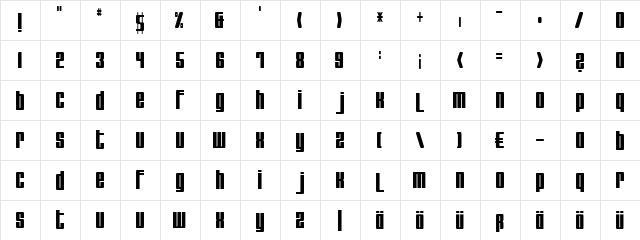
remakeoffabulous2 Light
Design Context for remakeoffabulous2 Typeface
remakeoffabulous2 takes a measured approach to typography — its balanced proportions and neutral character make it a reliable workhorse for both digital and print work. Its slender proportions lend an understated elegance to any composition.